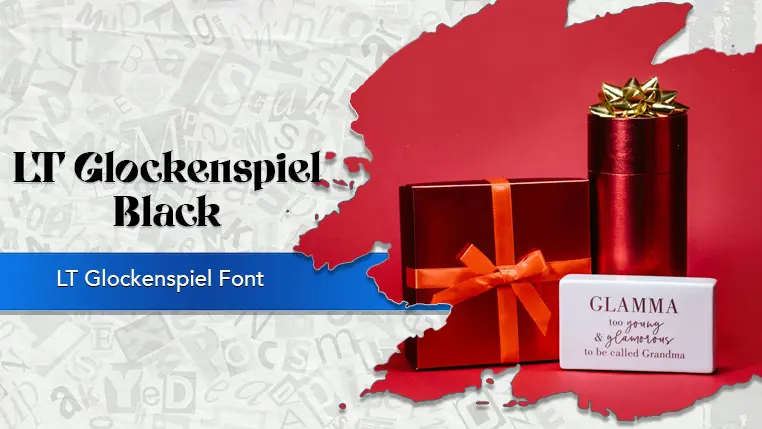
The LT Glockenspiel font family may be ideal for you if you enjoy working on an artistic design project. The lively, expressive look of this typeface, which was created by LyonsType, makes it ideal for Branding, logos and Packaging design. Its bold and attention-grabbing style is perfect for headlines on posters, book covers, album art, and websites where you want to make a strong visual impact. The font's bold presence makes it ideal for event posters, flyers, and other promotional materials where readability from a distance is important. and other light-hearted visual projects.
Black are the one primary font styles of the LT Glockenspiel font family. You may build dynamic, visually appealing text layouts with the distinct flair that each style offers. With crisp, readable lines and a relaxed tone.